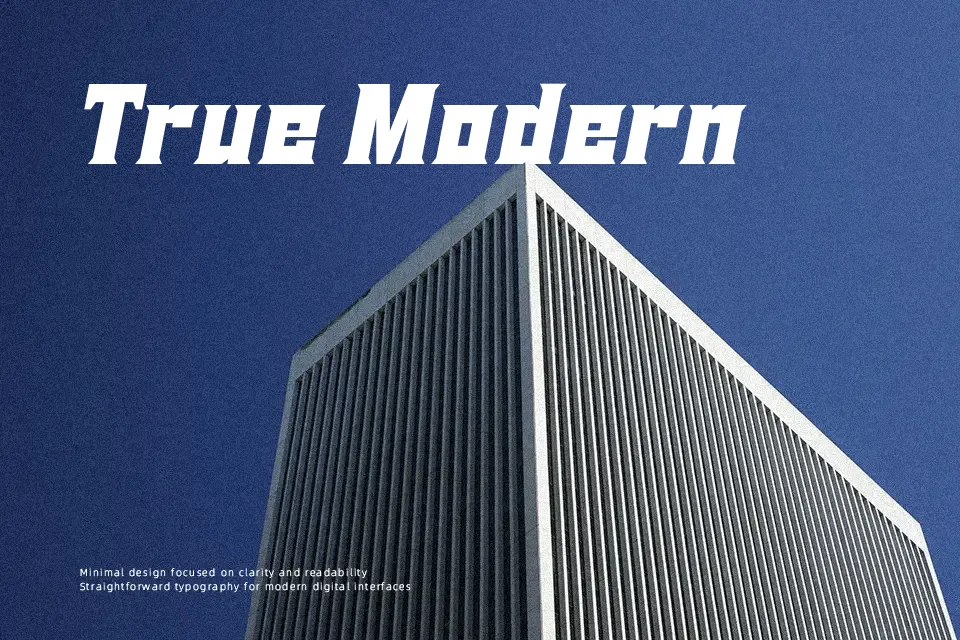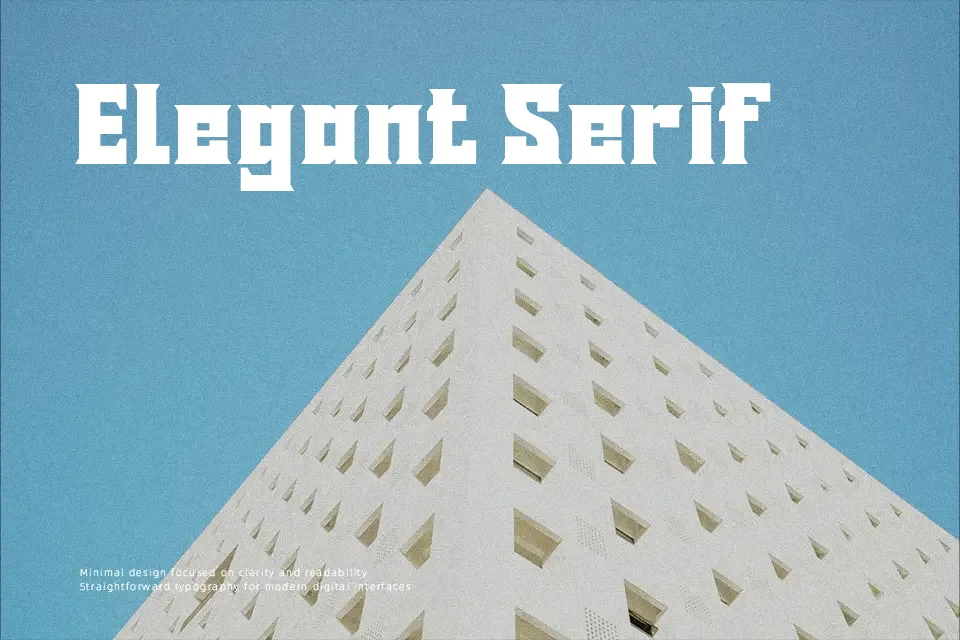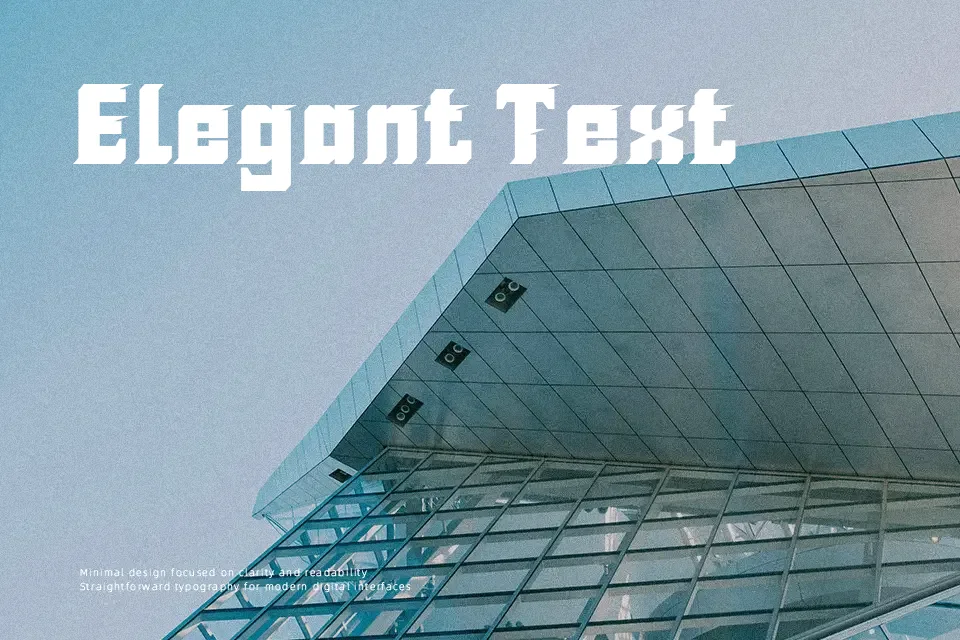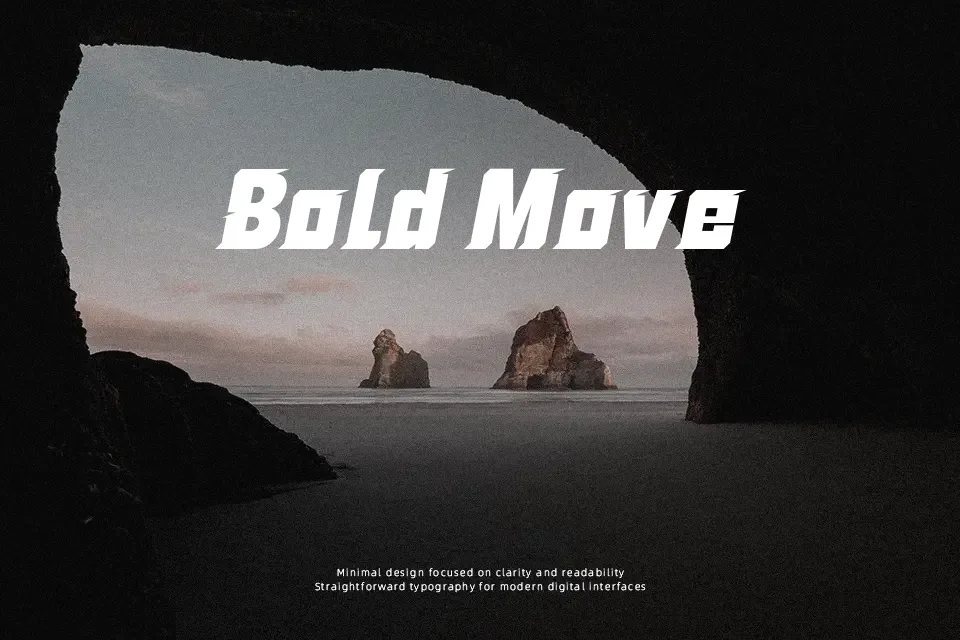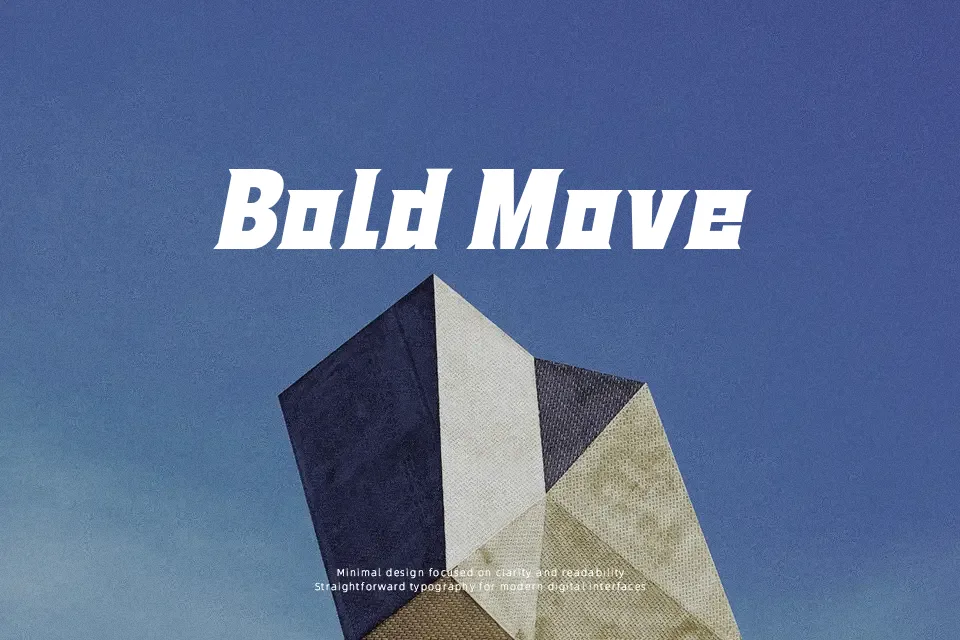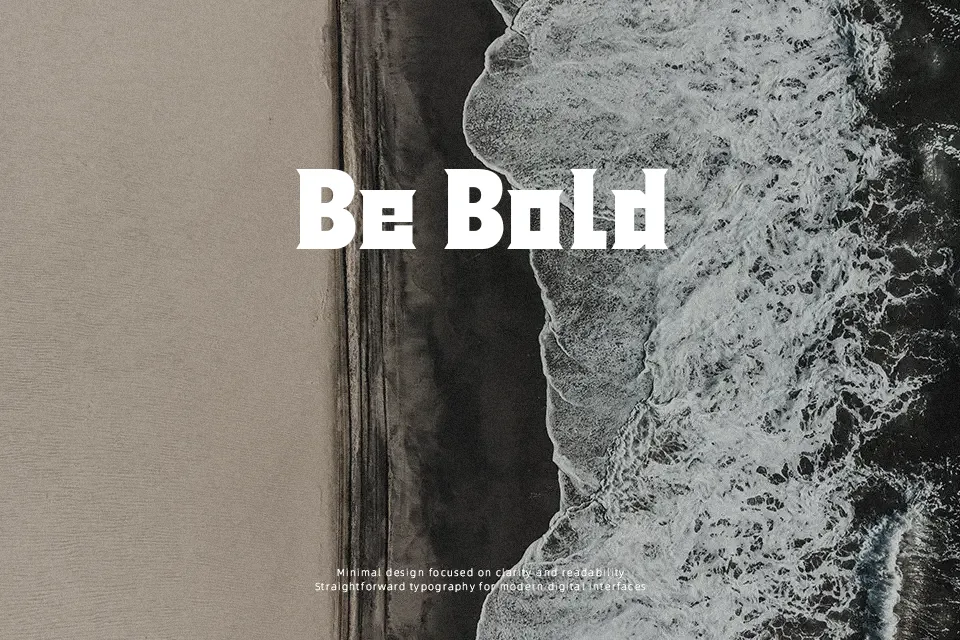
Sutixo Font
Sutixo Font establishes an energetic visual presence through robust stroke weights, sharp geometric serifs, and expansive horizontal proportions. The typeface utilizes moderate stroke contrast and tight internal spacing to produce a dense, forward-driving rhythm across headline applications. Each letterform incorporates disciplined angular cuts and clean terminal edges that keep glyphs sharp and distinct at substantial display sizes. Because of the substantial weight and compact inter-letter spacing, the design becomes difficult to read in extended body copy and dense editorial columns. The letterforms excel when deployed in motorsport event titles, gaming apparel, and striking merchandise graphics.
Best For: motorsport event posters, athletic apparel graphics, esports team logos, tournament headline banners
Not Ideal For: extended body paragraphs, mobile interface labels, dense legal documents, small caption text